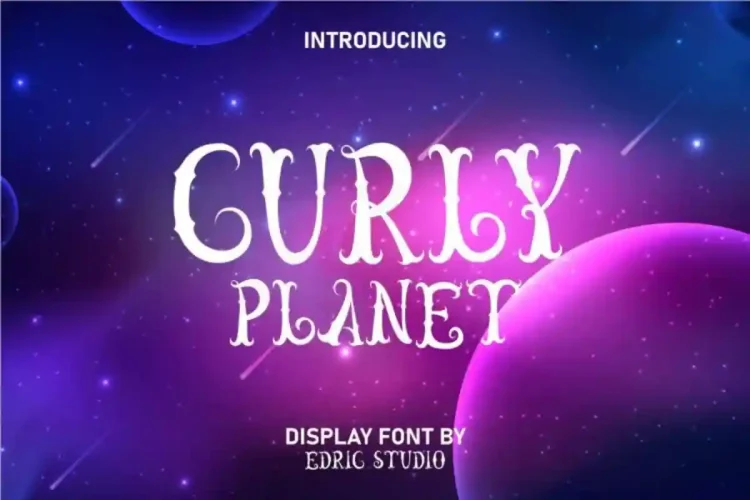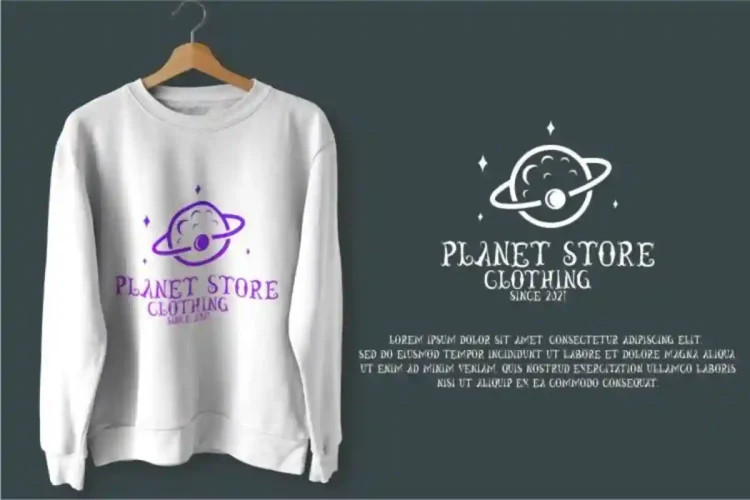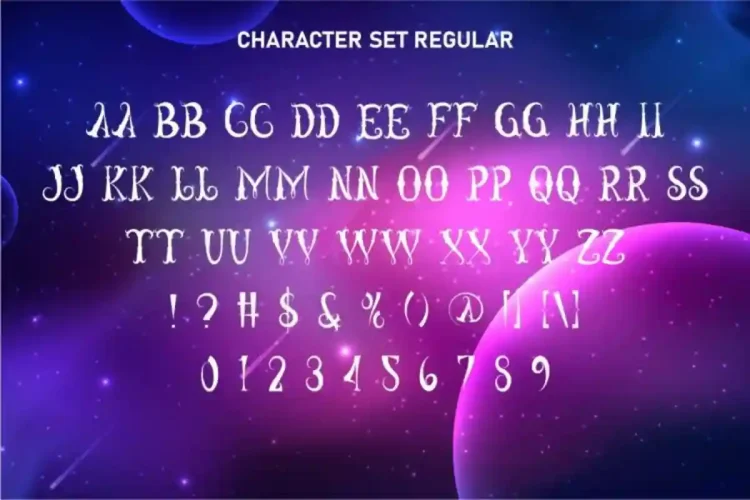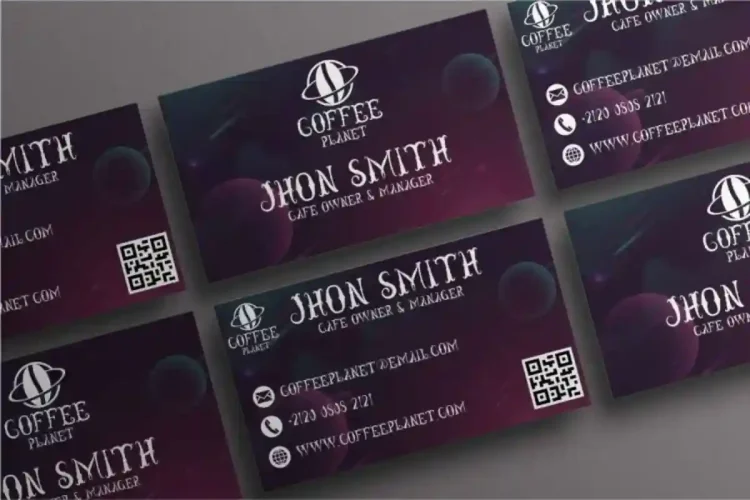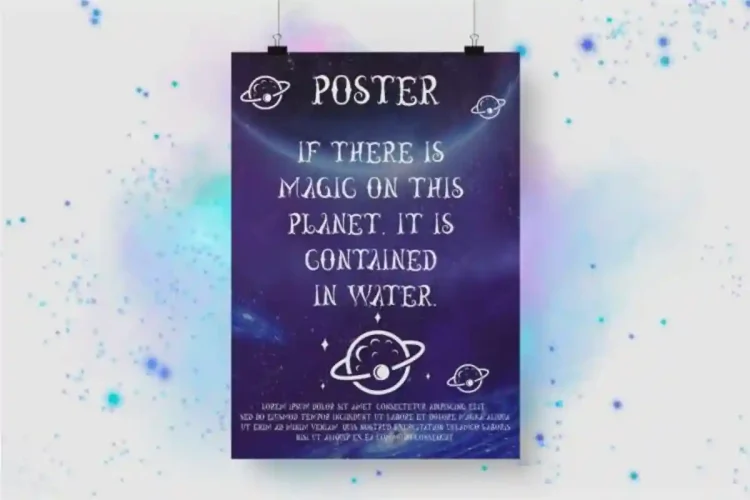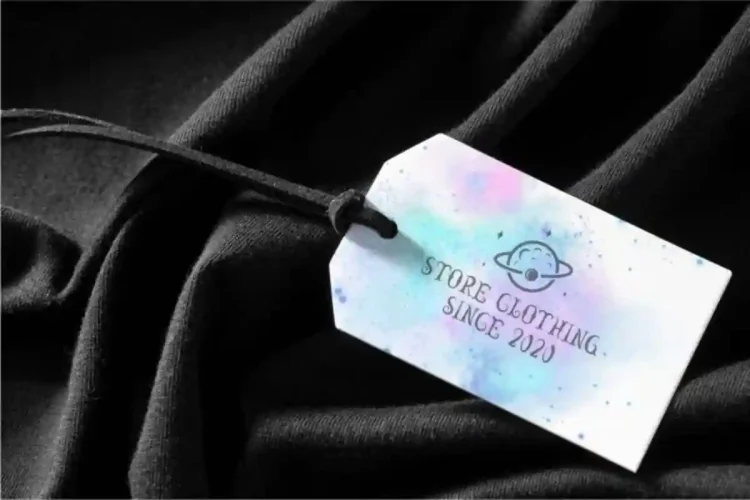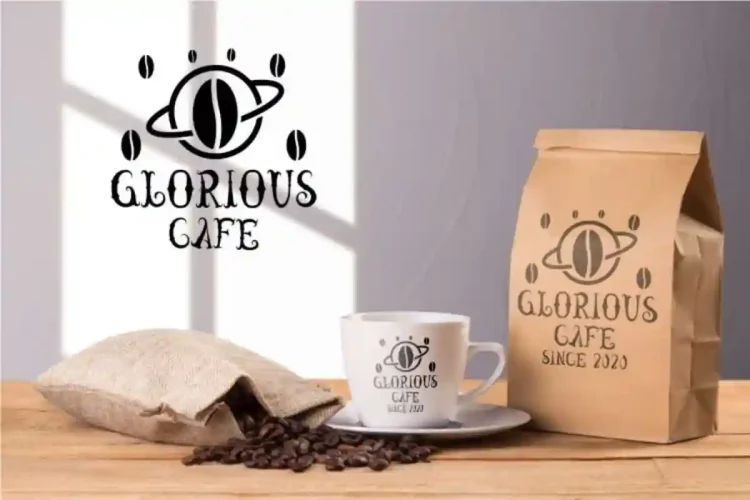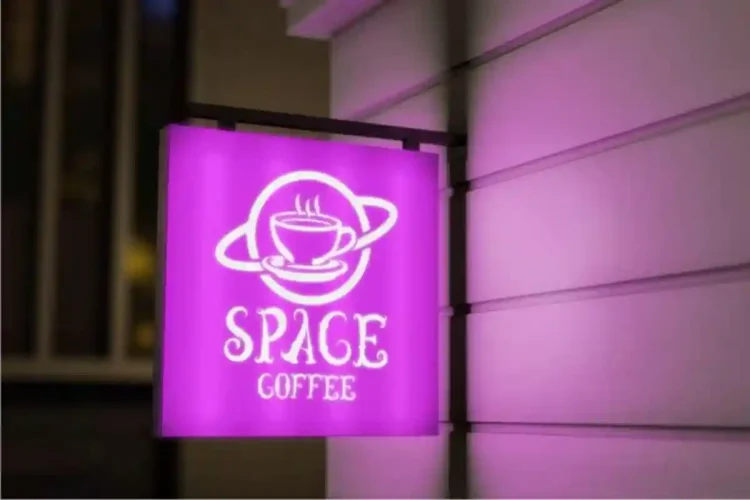
Curly Planet Display Font is a gorgeous and decorative font with curly style. This font would be ideal for billboard, business card, café, craft, headline, kids stuff, label, magic or wizard themed projects, movie, packaging design, poster, print clothes, signage, toy store, or anything else that requires an unique touch and is a good choice for any creation that requires a different touch.
Curly Planet Display Font comes with all caps letters, numbers, punctuation, symbol. This typeface has a trendy style, uniquely decorated and mysterious. Inspired by space and witch ancient writing, perfect combination makes it different. It’s PUA Encoded Character-Fully accessible without additional design software. Work on PC & Mac with simple installations. Accessible in the Adobe Illustrator, Adobe Photoshop, Adobe InDesign, even work on Microsoft Word.